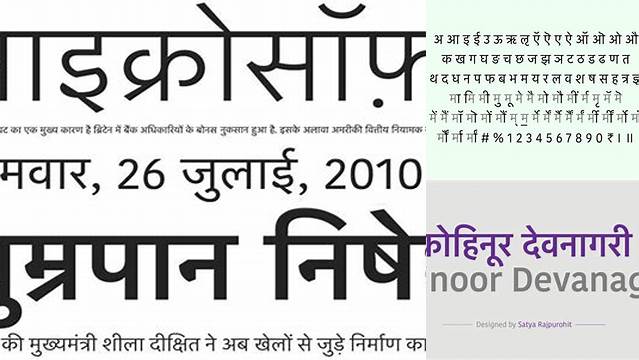
Kohinoor Devanagari: Free Font Download Guide
What is Kohinoor Devanagari?
Kohinoor Devanagari is a typeface known for its modern and readable design. It’s part of the larger Kohinoor family, which supports multiple scripts. Devanagari, used for languages like Hindi, Marathi, and Nepali, gets a real boost from this font's clean lines and balanced letterforms. It's designed to be versatile, working well in both print and digital media. The font aims to provide a contemporary feel while respecting the traditional forms of the script. This makes it a popular choice for a wide range of projects, from branding to publishing.
Why Choose Kohinoor Devanagari?
Choosing the right font can significantly impact the readability and aesthetic appeal of your designs, and that’s where Kohinoor Devanagari shines. This font offers a unique blend of modernity and tradition, making it suitable for various applications. Its clear and balanced letterforms ensure excellent readability, whether you’re working on print or digital media. Moreover, the versatility of Kohinoor Devanagari means you can use it for everything from branding materials to long-form text. By selecting Kohinoor Devanagari, you're not just picking a font; you're choosing a typeface that enhances the overall quality and professionalism of your work, ensuring your message is communicated effectively and beautifully. It’s a reliable choice for designers aiming for a polished and contemporary look.
Kohinoor Devanagari Font Features
Kohinoor Devanagari boasts a plethora of features that make it a top-tier font choice for designers and publishers alike. Its clean and modern design ensures excellent readability, making it suitable for both body text and headlines. The font family often includes multiple weights, from light to bold, providing flexibility for different design needs. Additionally, it supports a wide range of characters and glyphs, accommodating various linguistic nuances. The balanced letterforms and consistent spacing contribute to a harmonious visual rhythm, enhancing the overall aesthetic appeal. The attention to detail in its design ensures that it performs well in both print and digital media. These features collectively make Kohinoor Devanagari a versatile and reliable option for anyone looking to create professional and visually appealing content.